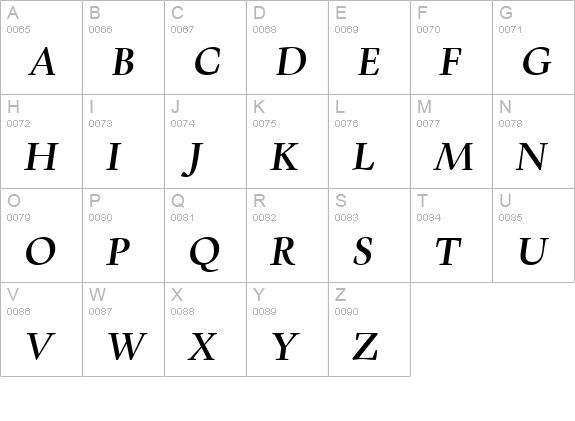
Kennedy Bold Italic GD is a strong, high-contrast, italic variant in the Kennedy typeface family \xE2\x80\x94 well suited to headlines, attention-grabbing titles, and strong calls-to-action.
Introducing Kennedy Bold Italic GD, a captivating and sophisticated font that effortlessly combines boldness with elegance. This versatile typeface exudes confidence and adds a touch of modernity to any design project. With its striking curves and distinctive letterforms, Kennedy Bold Italic GD commands attention and makes a bold statement. Whether used for headlines, logos, or branding materials, this font captivates the audience, leaving a lasting impression. What makes Kennedy Bold Italic GD even more appealing is that it is freely available to download at FontsMarket.com. This means that you can easily access and utilize this remarkable font for your creative endeavors without any cost. The clean and precise lines of Kennedy Bold Italic GD give it a professional and polished appearance, making it perfect for a wide range of applications. From high-end fashion magazines to sleek corporate presentations, this font effortlessly adapts to any project, adding a touch of refinement and sophistication. With its bold and italicized design, Kennedy Bold Italic GD offers a unique and eye-catching aesthetic that sets it apart from other fonts. The combination of thick strokes and slanted angles creates a sense of energy and movement, making it ideal for projects that require a dynamic and engaging visual impact. Whether you are a professional designer or an enthusiastic hobbyist, Kennedy Bold Italic GD is a versatile and powerful font that will elevate your creations to new heights. Its boldness, elegance, and freely available nature make it an essential addition to your font collection. Download and unlock the unlimited potential of Kennedy Bold Italic GD at FontsMarket.com today.